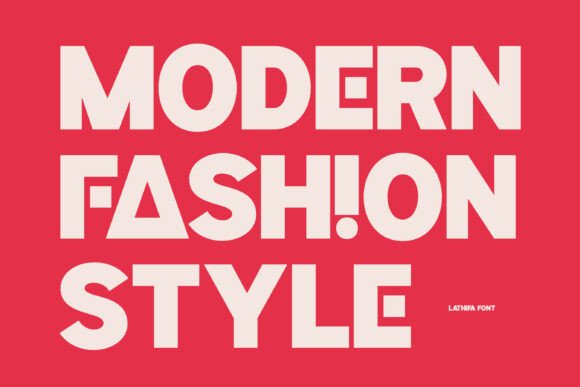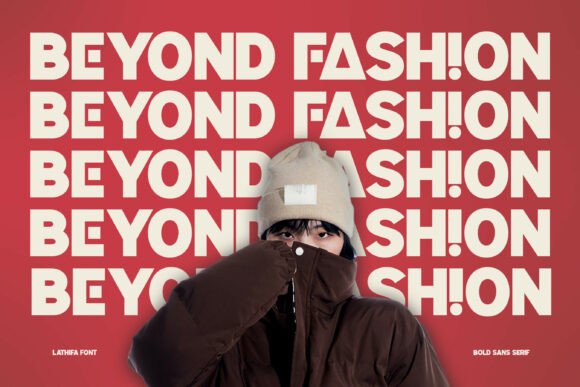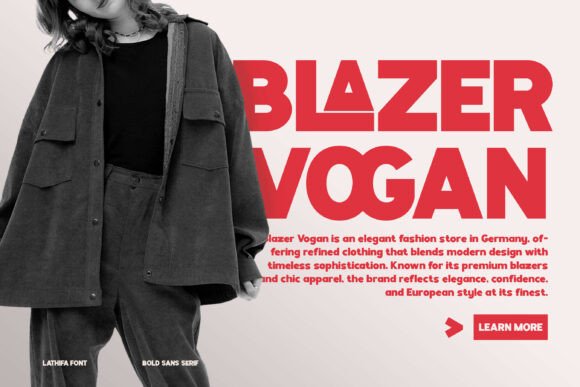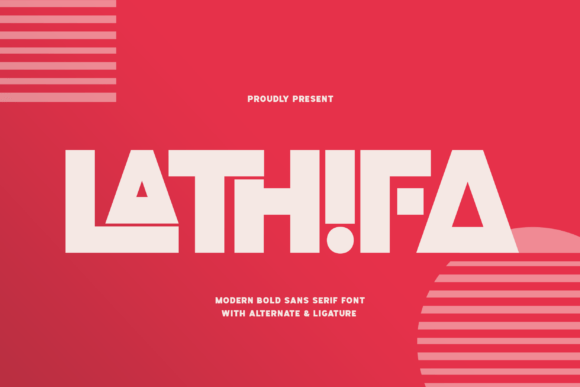
Introduction to Lathifa Font
Lathifa is a modern bold sans serif font designed with a strong geometric touch and contemporary style.
Its sharp edges, clean lines, and striking alternates make it perfect for projects that demand attention and confidence With its powerful appearance and versatile ligatures, Lathifa shines in logos, branding, posters, packaging, and editorial designs.